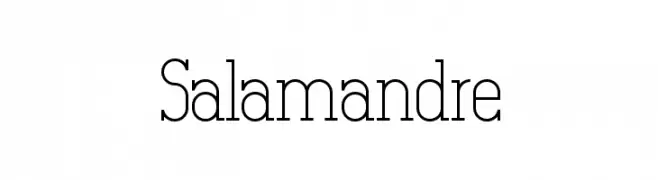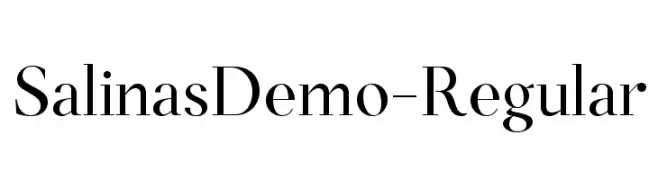
A modern slab serif font with elegant, narrow uppercase letters and balanced lowercase characters.
A classic serif font with medium contrast and elegant strokes.
A tall, narrow, and modern condensed font with uniform stroke width.
An elegant, calligraphic script font with ornate uppercase and flowing lowercase letters.
A bold, playful font with rounded edges and a vintage flair.
A tall, narrow font with a modern and sleek design.
Graffiti-inspired font with bold, fluid strokes and interconnected characters.
A bold, hand-drawn font with a rugged, adventurous style.
A bold, slab serif font with geometric shapes and a vintage feel.
A bold, condensed font with angular, geometric letterforms.